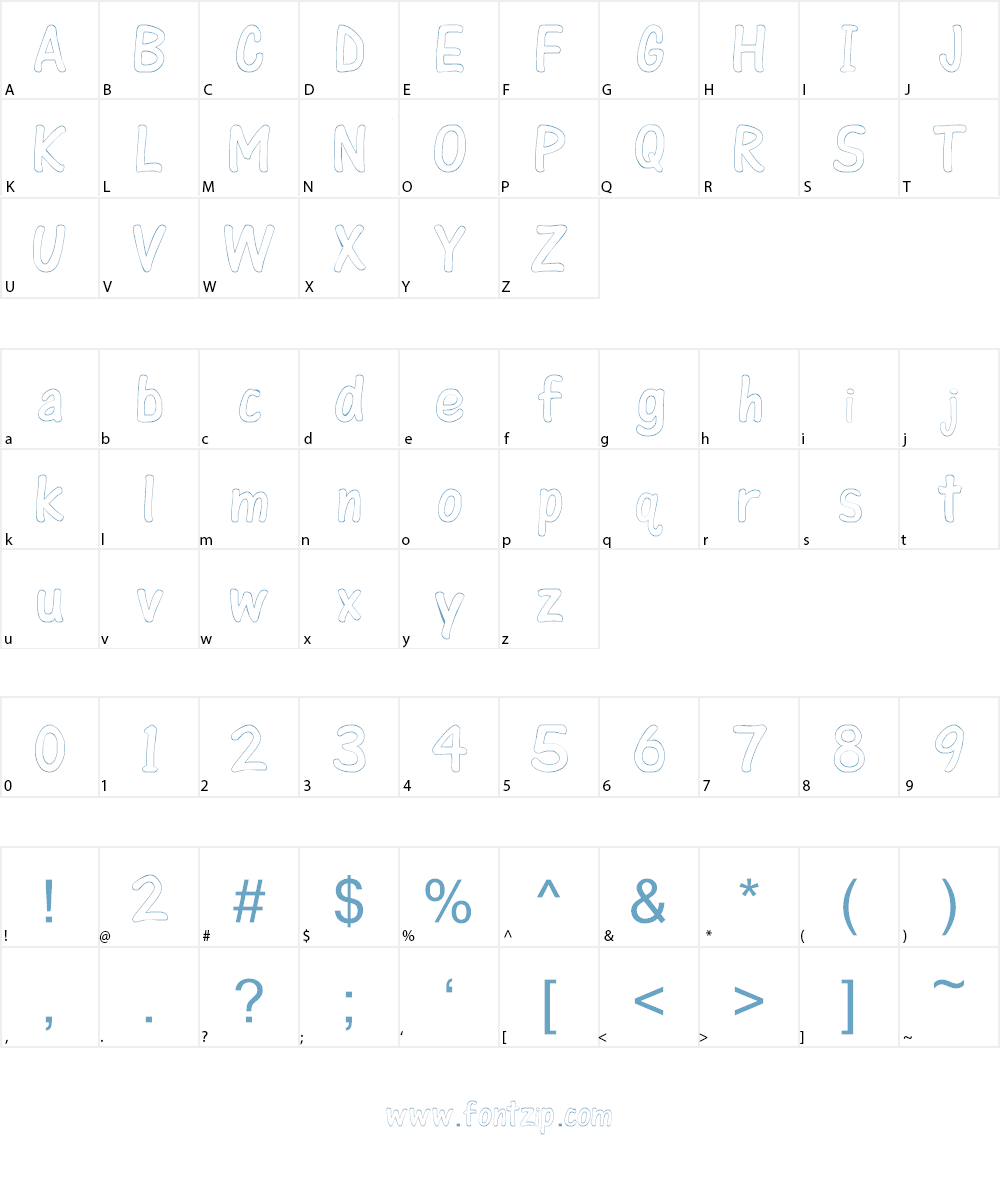
This is an outline font designed to be used in coloring activity sheets for preschoolers. The lines are somewhat irregular, and the whole font has a generally dynamic & interesting appearance. It is designed to be used at larger sizes (60pt. & up) to make for easy coloring.